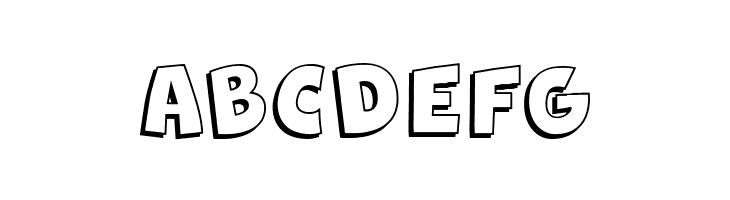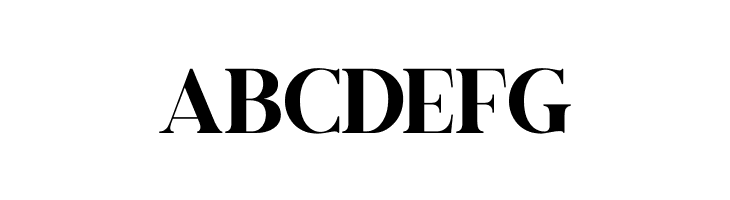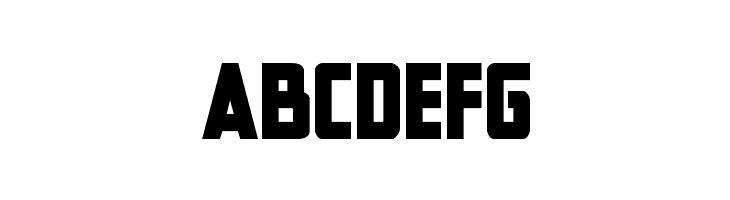
A refined serif font with high contrast and elegant, elongated strokes.
A bold, high-contrast serif font with elegant curves and dramatic strokes.
A bold, high-contrast serif font with a classic yet modern style.
A bold, angular font with high contrast and dynamic style.
A modern, geometric font with bold, angular shapes and clean lines.
A bold, decorative font with Art Deco influences and dotted pattern fills.
A bold, elegant script font with flowing, cursive letters and ornate uppercase characters.
A barcode-inspired font with a modern, industrial aesthetic.
Bold 3D display font with strong shadows and playful style.
A playful, rounded font with smooth curves and a friendly appearance.
A bold, decorative font with a geometric structure and textured interior pattern.
A playful, handwritten font with rounded, consistent strokes and a friendly vibe.
An elegant script font with flowing cursive characters and intricate swashes.
An elegant script font with flowing lines and intricate swirls.
Playful, rounded sans-serif with a hand-drawn, casual style.
A casual, handwritten monoline script with rounded forms.
Casual handwritten script with a festive, playful vibe.
A festive, decorative script font with playful, flowing strokes.
A decorative, handwritten script with festive, flowing strokes.
A bold, decorative font with a gothic and urban flair.
A playful, bold font with a whimsical, cartoonish style.
A playful, bold outline font with a comic-like appearance.
A bold, comic-style font with a playful shadow effect.
A bold, geometric font with strong, angular lines and a modern comic book style.
A bold, geometric font with strong, impactful letterforms.
A bold, 3D geometric font with a comic book style.
A bold, 3D outlined font ideal for comic book titles and striking headlines.
A bold, 3D italic font with a dynamic and playful style.
A bold, 3D italic font with a comic-inspired style.
A bold, geometric font with strong, uniform strokes and sharp angles.
Bold, blocky font with a modern, industrial style.
A bold, italic typeface with a dynamic and modern style, ideal for attention-grabbing headlines.
A bold, italicized font with a dynamic and energetic style.
A bold, condensed font with geometric shapes and uniform strokes, perfect for impactful headlines.
A bold, condensed font with strong geometric shapes and uniform strokes.